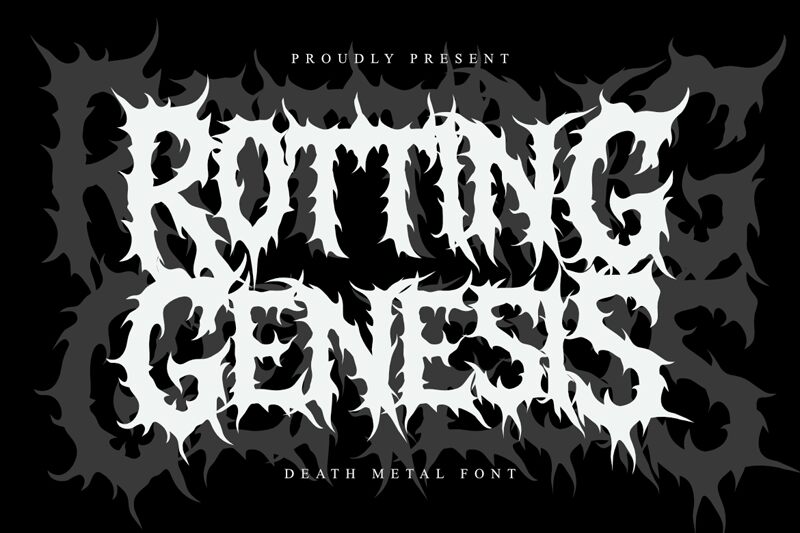
Rotting Genesis by Masyafi Studio is a free distorted horror display font with letters that look torn from wet ink and thorny vines at once. The caps push a black-metal mood hard, with jagged flame-like spikes, ragged edges, and heavy shapes that make the word feel overgrown, corrupted, and a little feral.
Use this free font for album covers, horror posters, game title cards, festival flyers, and merch marks where the letters need to feel like part of the atmosphere. It also works for short cover lines and monograms, because the silhouettes stay bold even as the edges writhe and splinter.
Rotting Genesis